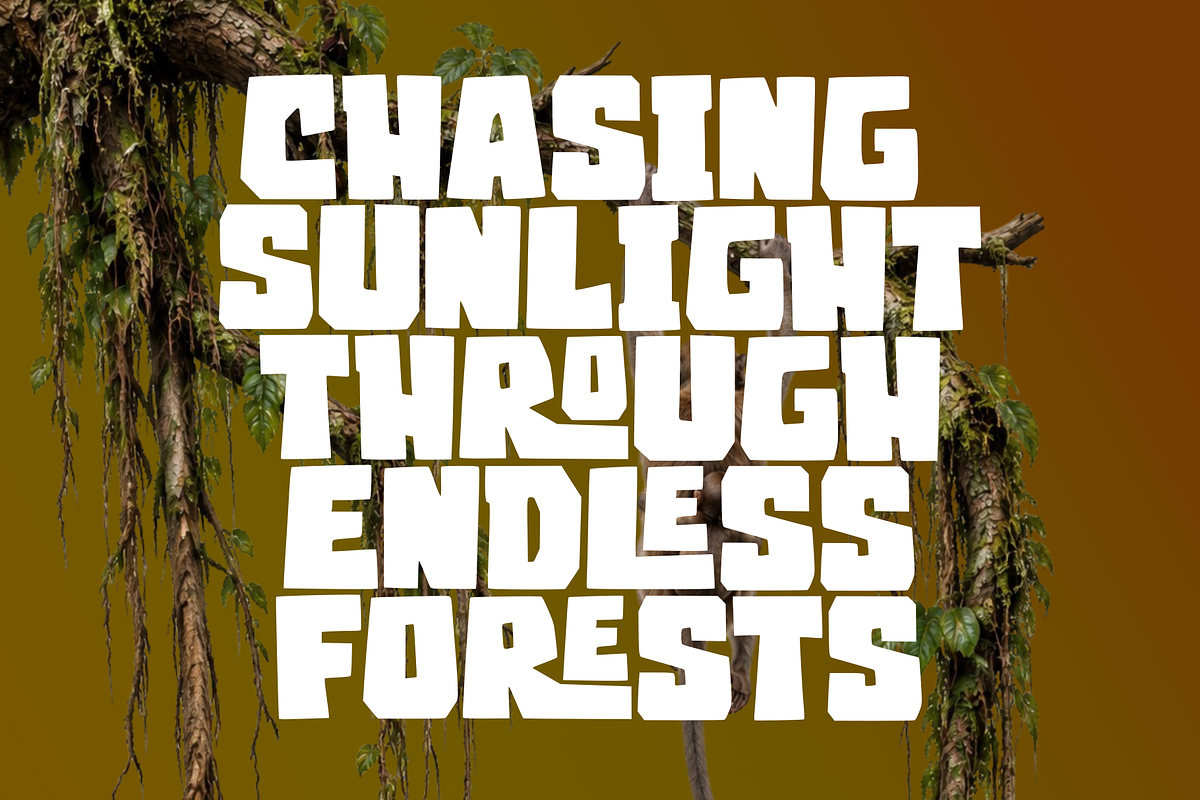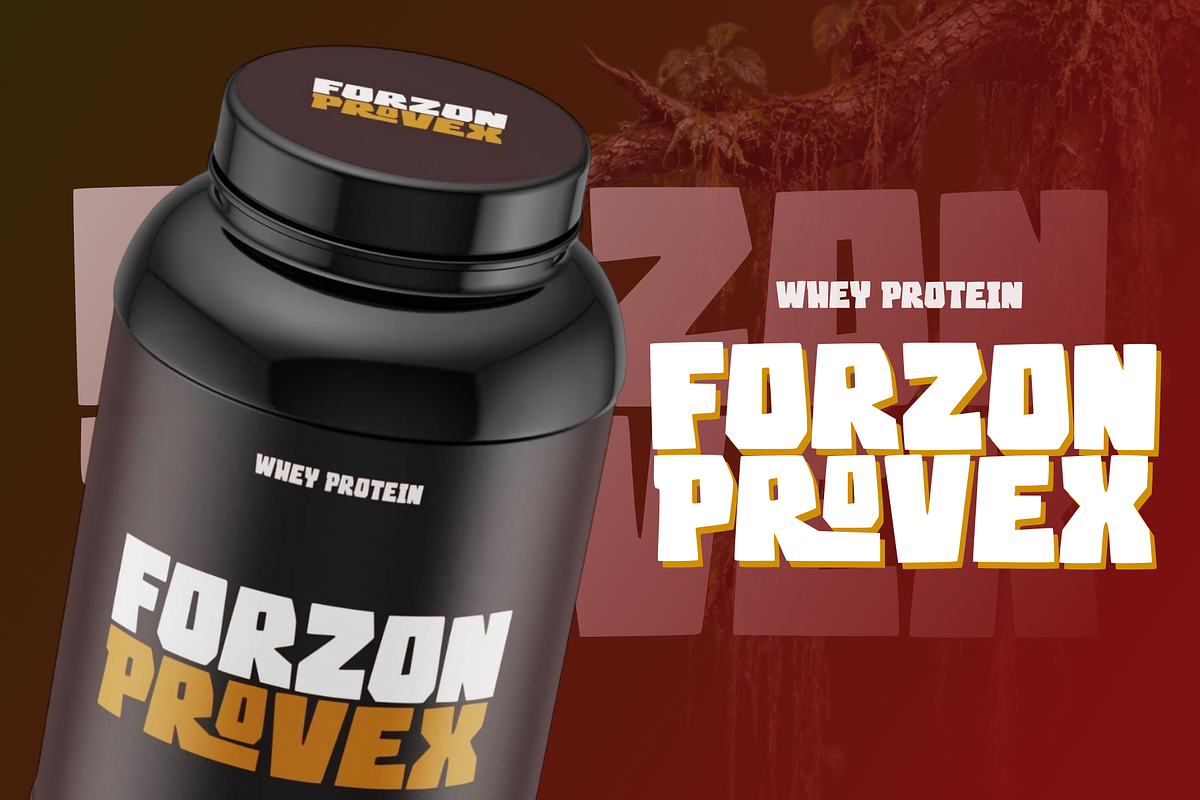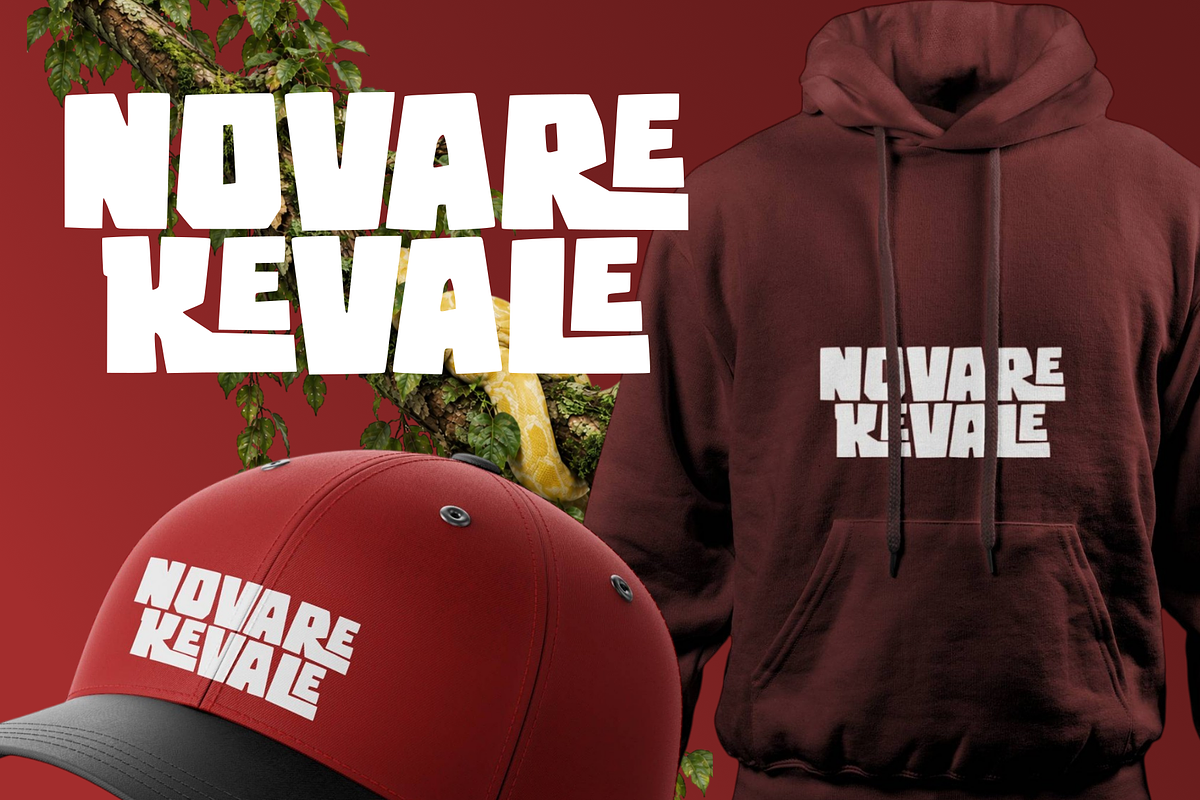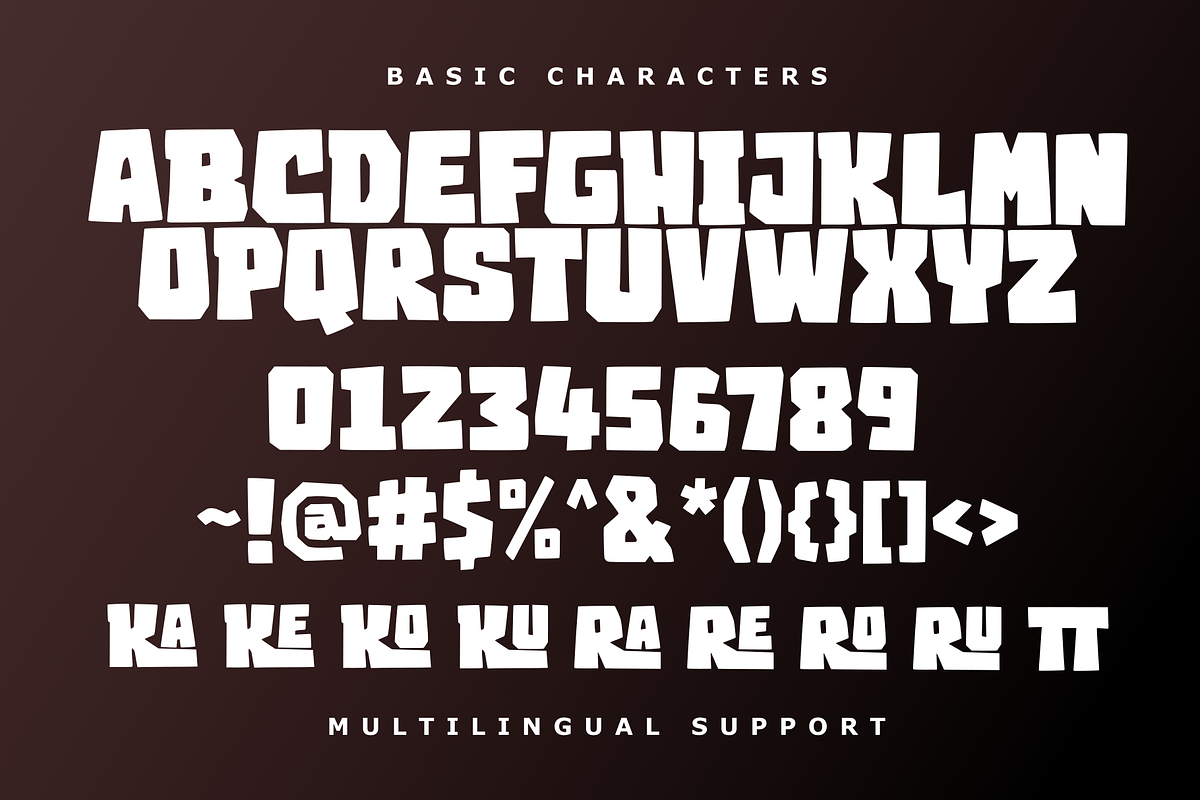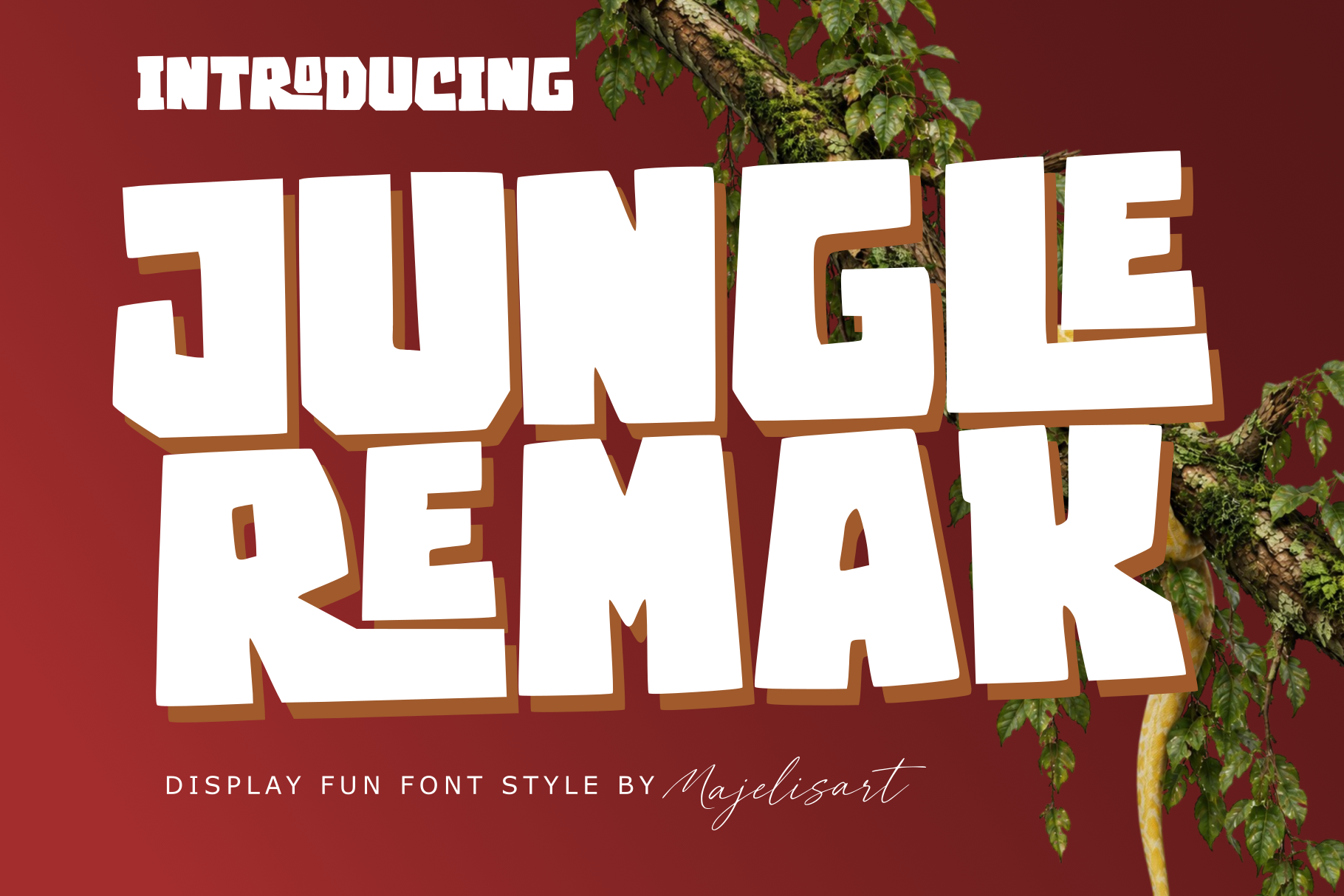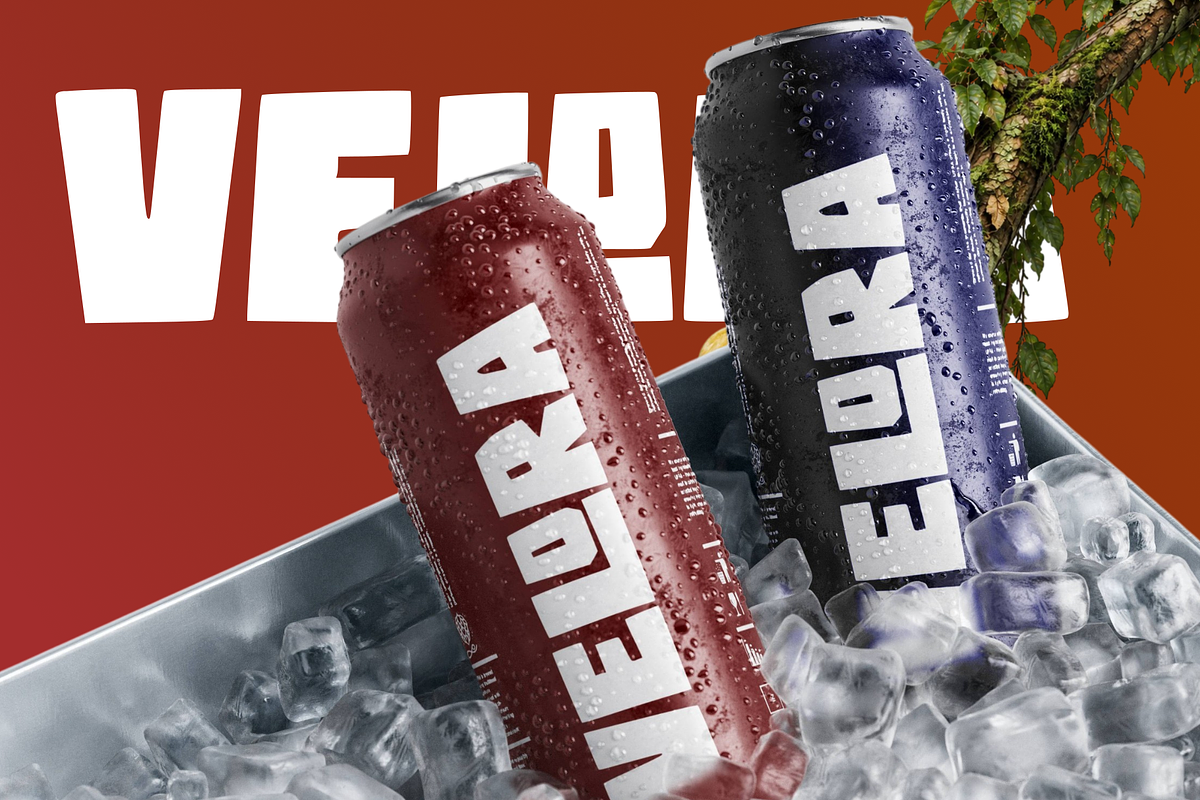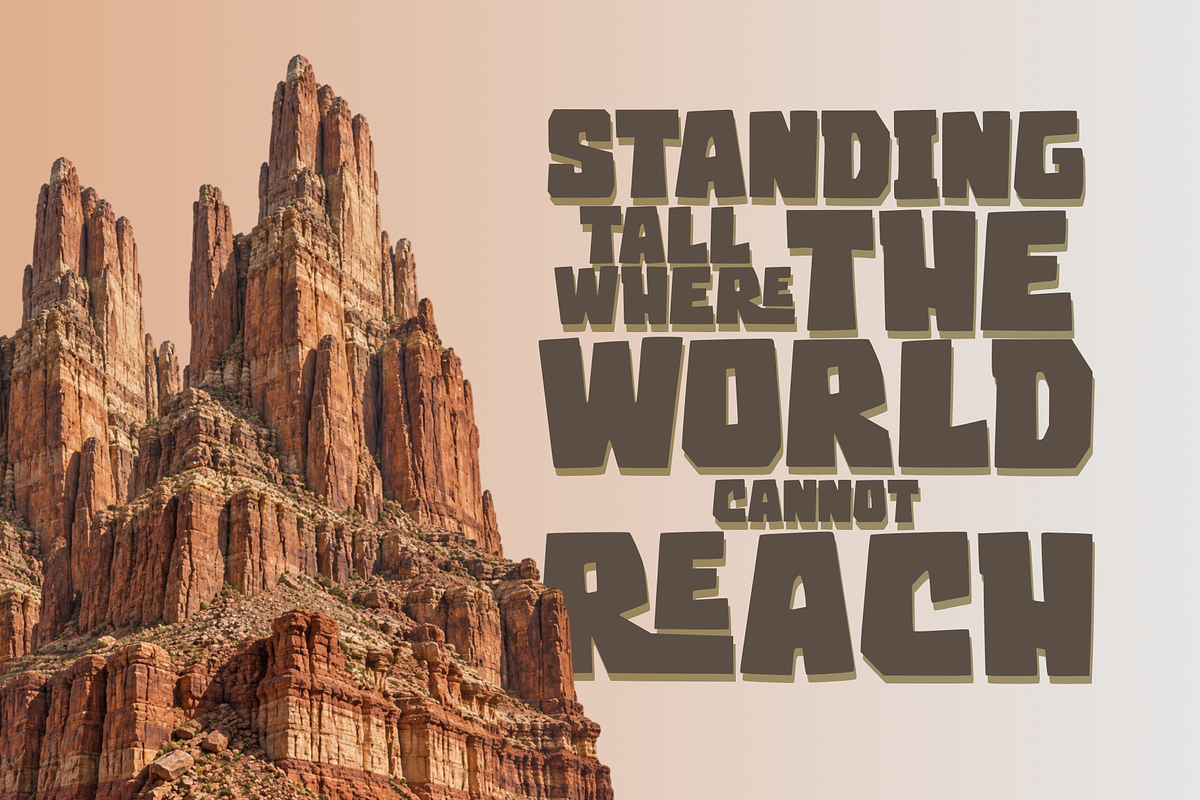
Jungle Remak - Display font
Jungle Remak — Display Fun Font
Introducing Jungle Remak, a bold and powerful display typeface inspired by the wild, raw, and adventurous character of the jungle.
Featuring heavy blocky letterforms, sharp cuts, irregular details, and a strong rugged appearance, Jungle Remak gives your designs an energetic and fearless personality. Its bold structure makes it highly effective for large headlines and eye-catching display artwork.
Jungle & tropical designs
Adventure branding
Outdoor & camping designs
Posters & flyers
T-shirts & apparel
Streetwear
Logos & branding
Stickers & merchandise
Gaming graphics
Sports designs
Music artwork
Event posters
Product packaging
Headlines & titles
Jungle Remak includes multilingual support for supported Latin-based characters, making it suitable for creative projects targeting an international audience.
Jungle Remak — Wild. Bold. Unstoppable.